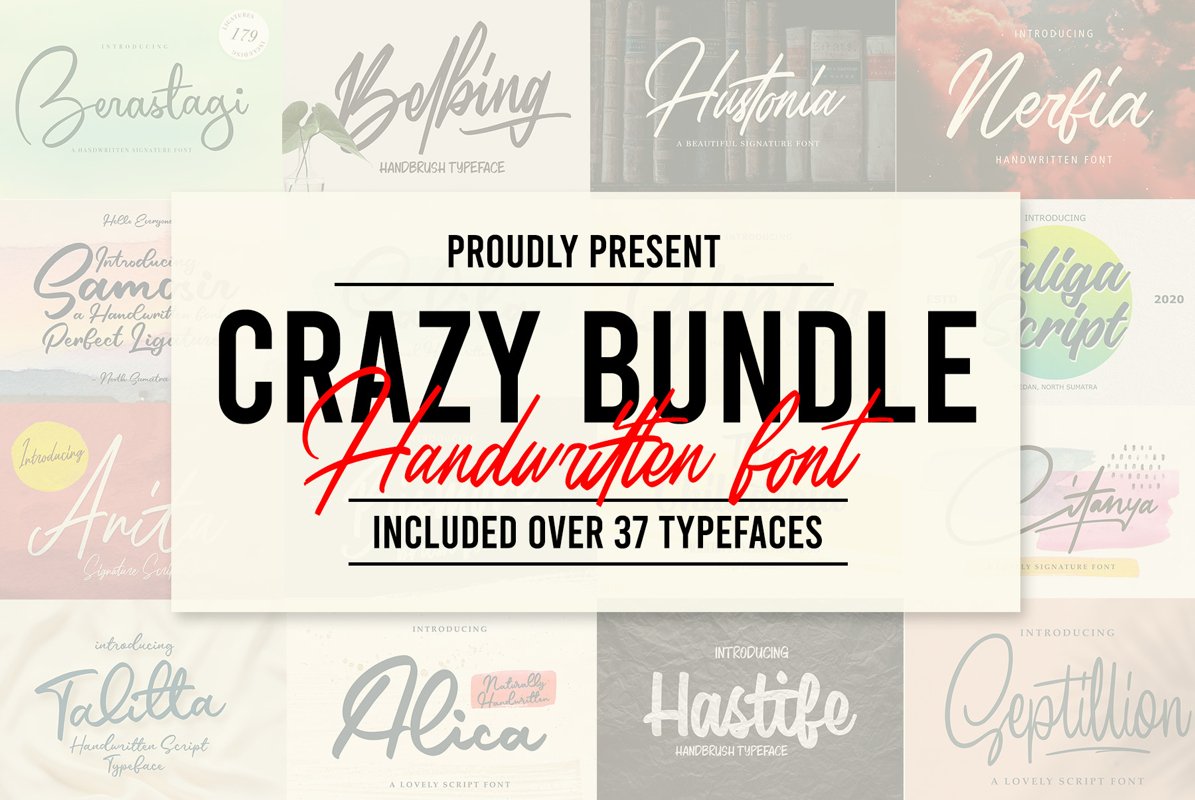
CRAZY BUNDLE - Handwritten Font
Hustonia Script
Anguine Sans
Alica Script
Anguine Outline
Alabasta Yt One
Alabasta Yt Two
Chiladepia Sans Serif
Castinos Swashes
Script16 Test
Daniel Display
Anita Script
Daniel Script
Chiladepia Script
Brachial yt One
Belbing Script
Anguine Script
Brachial yt Two
Citanya Script
Brachial yt Alt
Castinos Script
Butner
Ballones Script
Cilladia Signature
Berastagi
Bismore
Gladiol Haze ss01
Gladiol Haze
Gladiol Haze ss02
Kilanta Script
Gladiol Haze Sans
Hastife Script
Nielson
Glintar Script
Salifa Script
Martial Script
Patinson
Nerfia Script
Germaly Script
Nedilan Script
Samosir
Regan Script
Kilanta Display
Edigtor
Shemory
Septillion Script
Taliga
Wavetone Extra
Talitta Script
Wavetone
Yustin Script
Sweet Morning